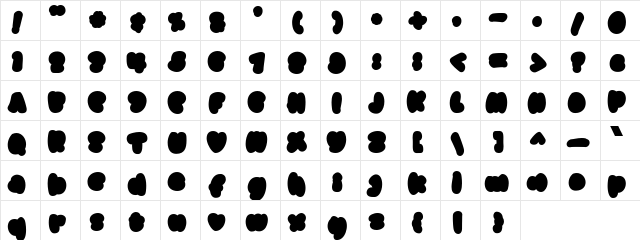
Monkey & Banana Base Regular
Design Context for Monkey & Banana Base Typeface
Monkey & Banana Base is a composed and adaptable typeface that performs quietly and consistently across a wide range of design contexts.